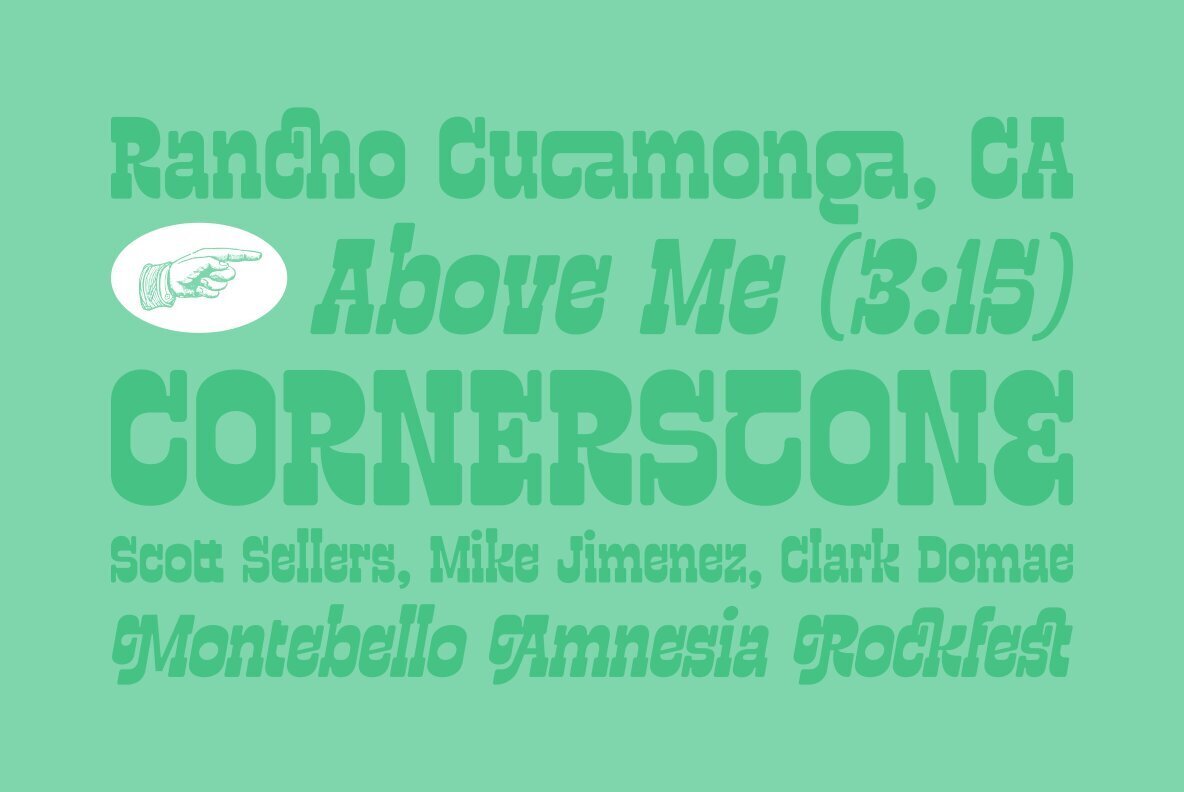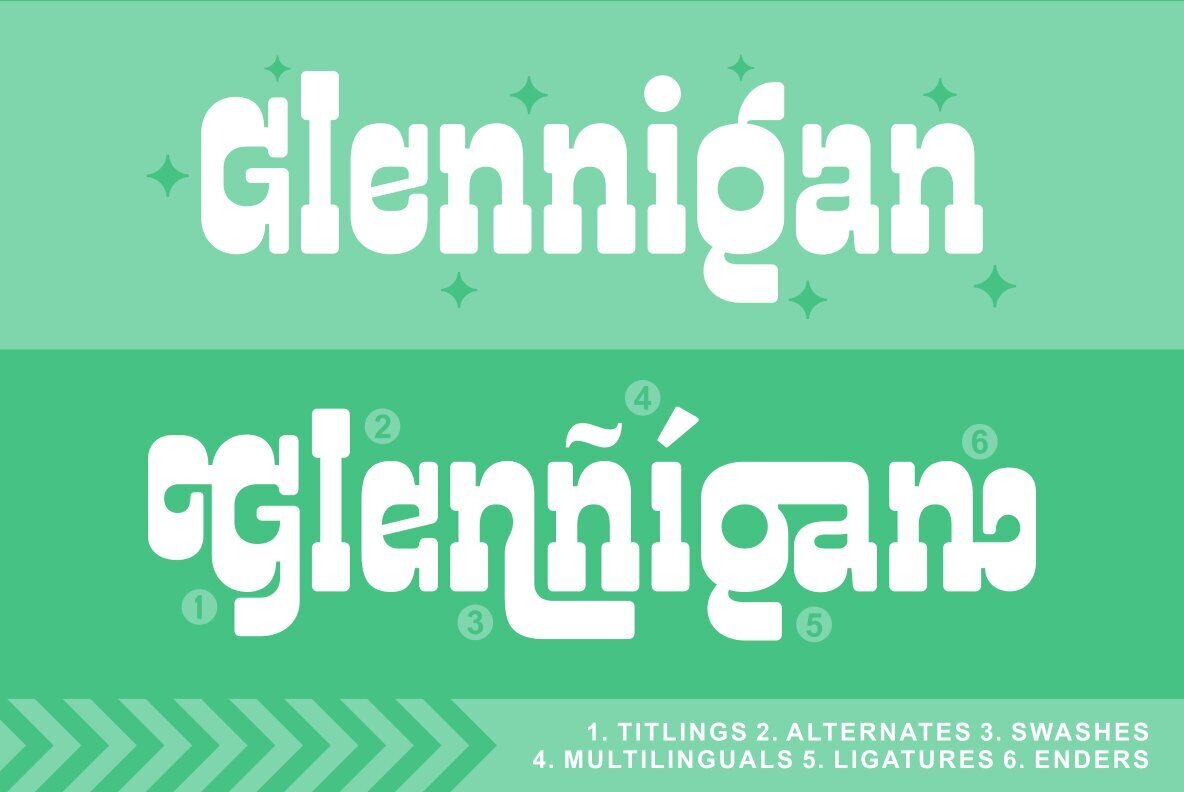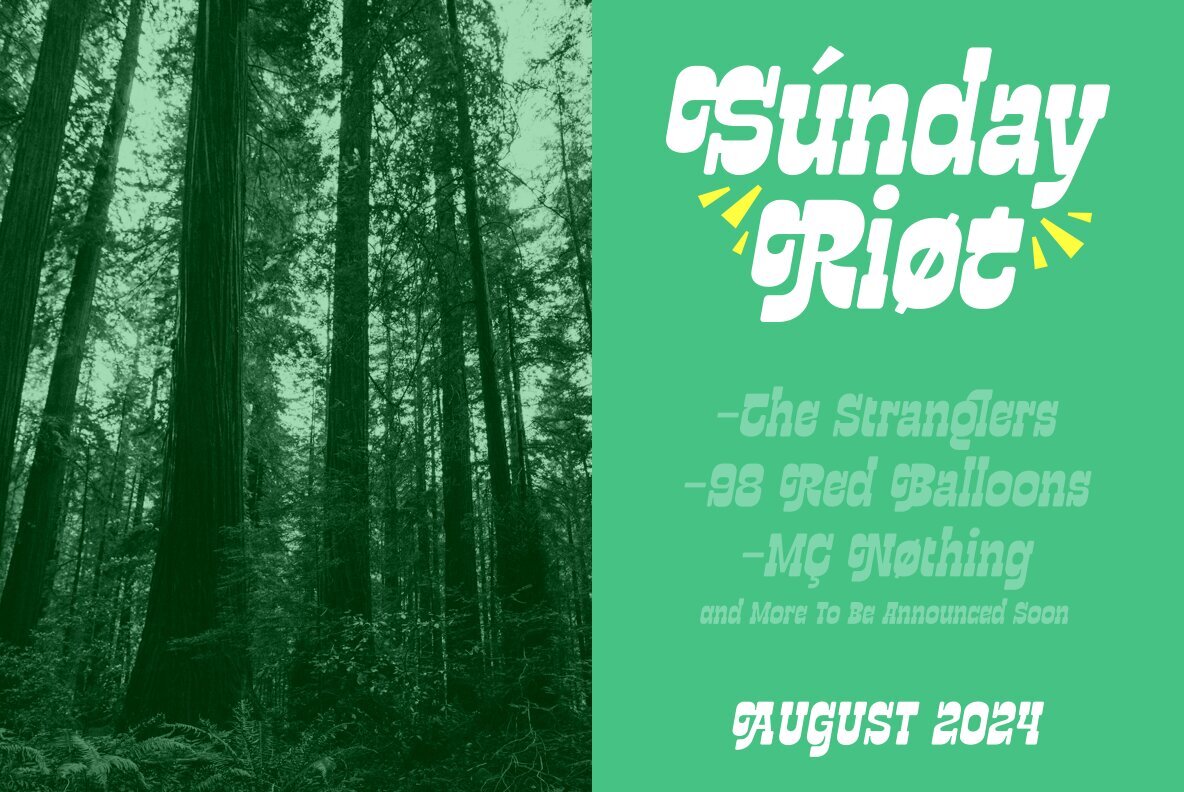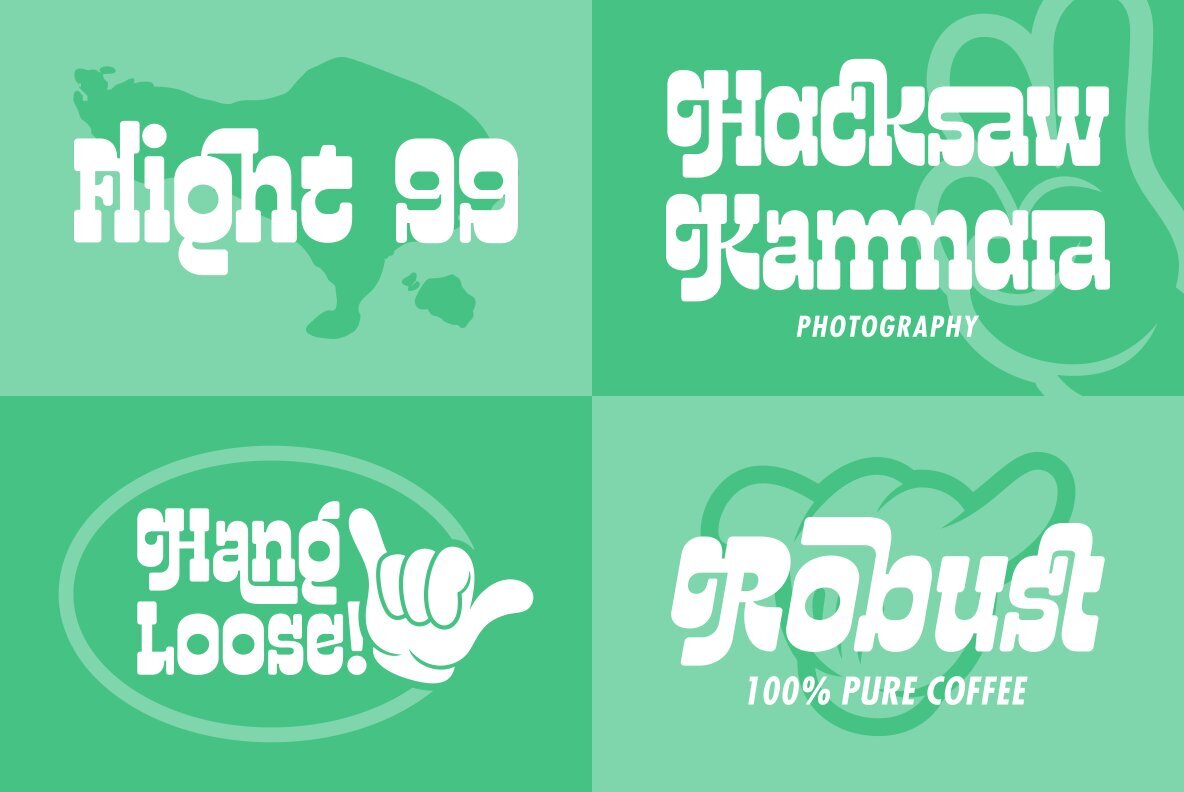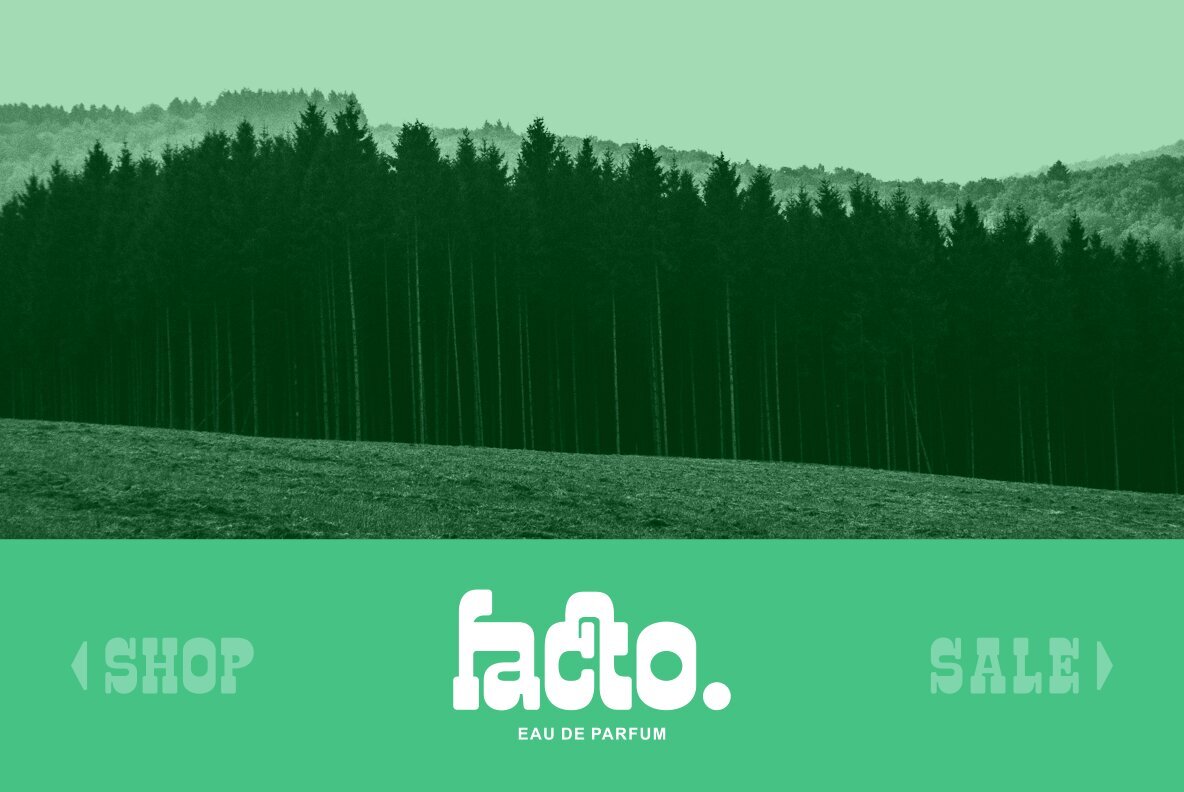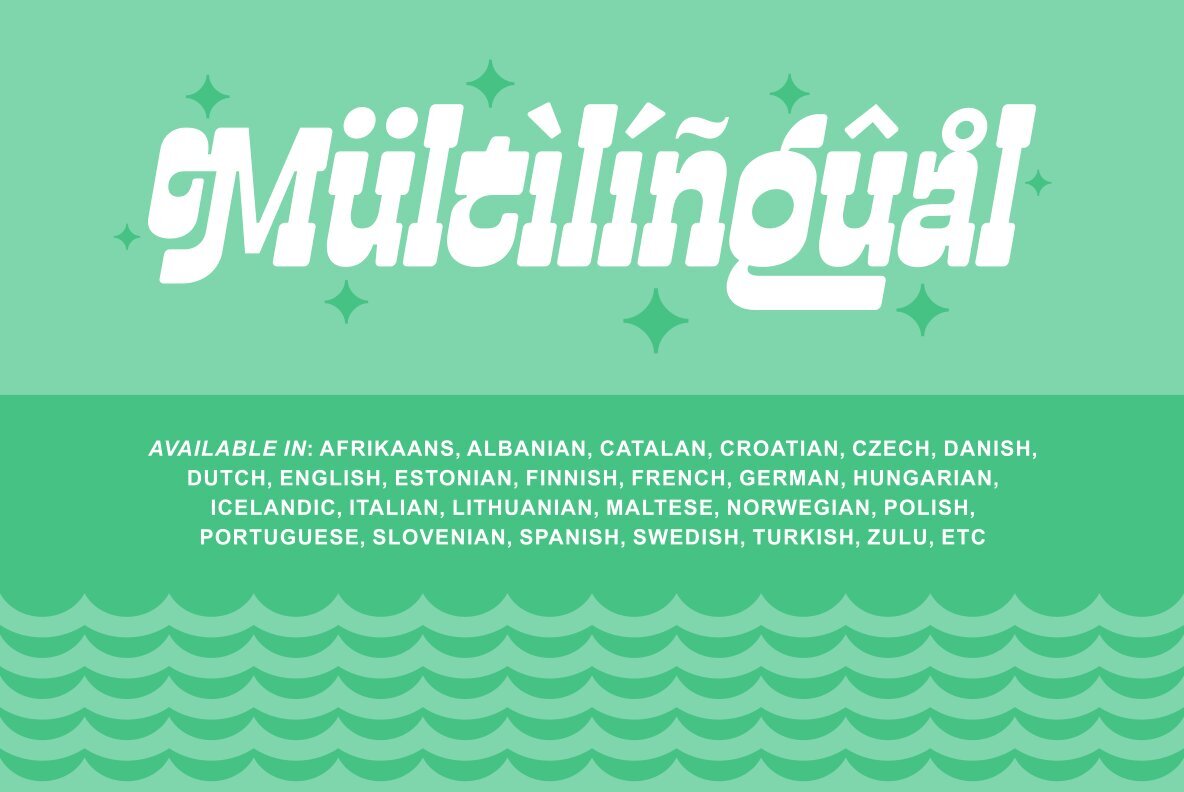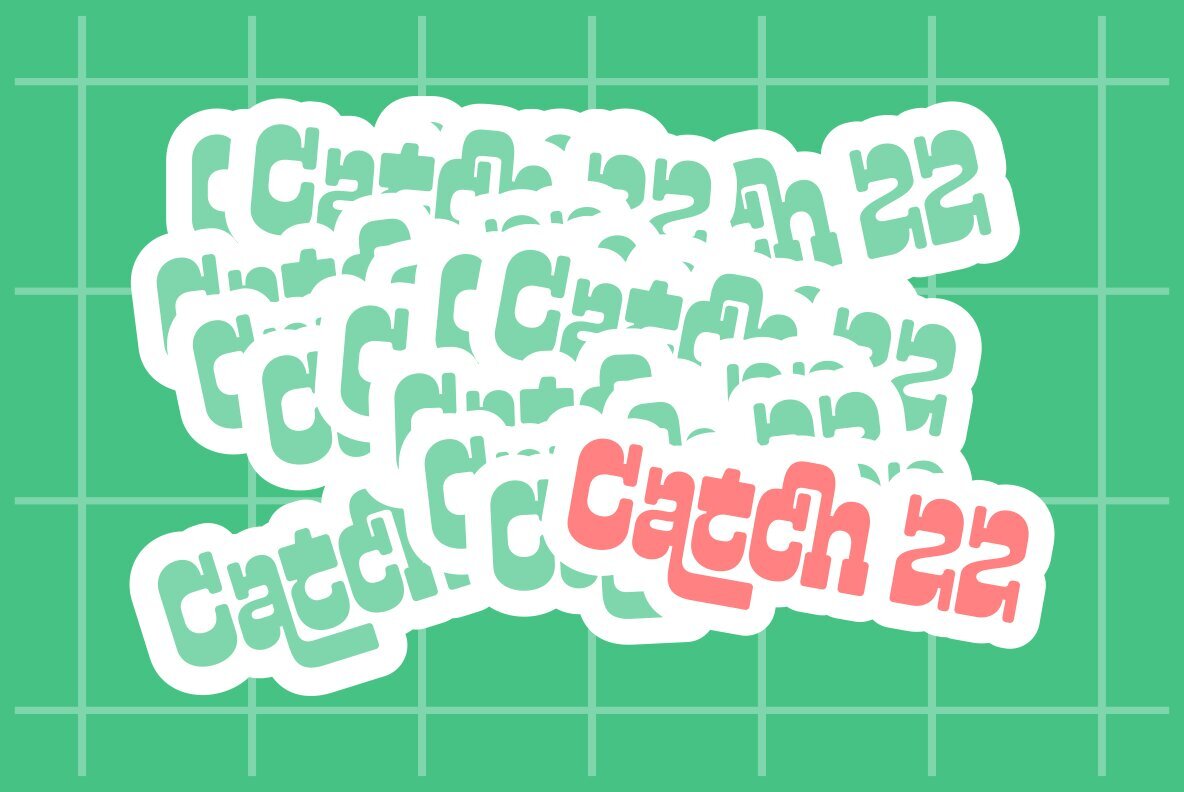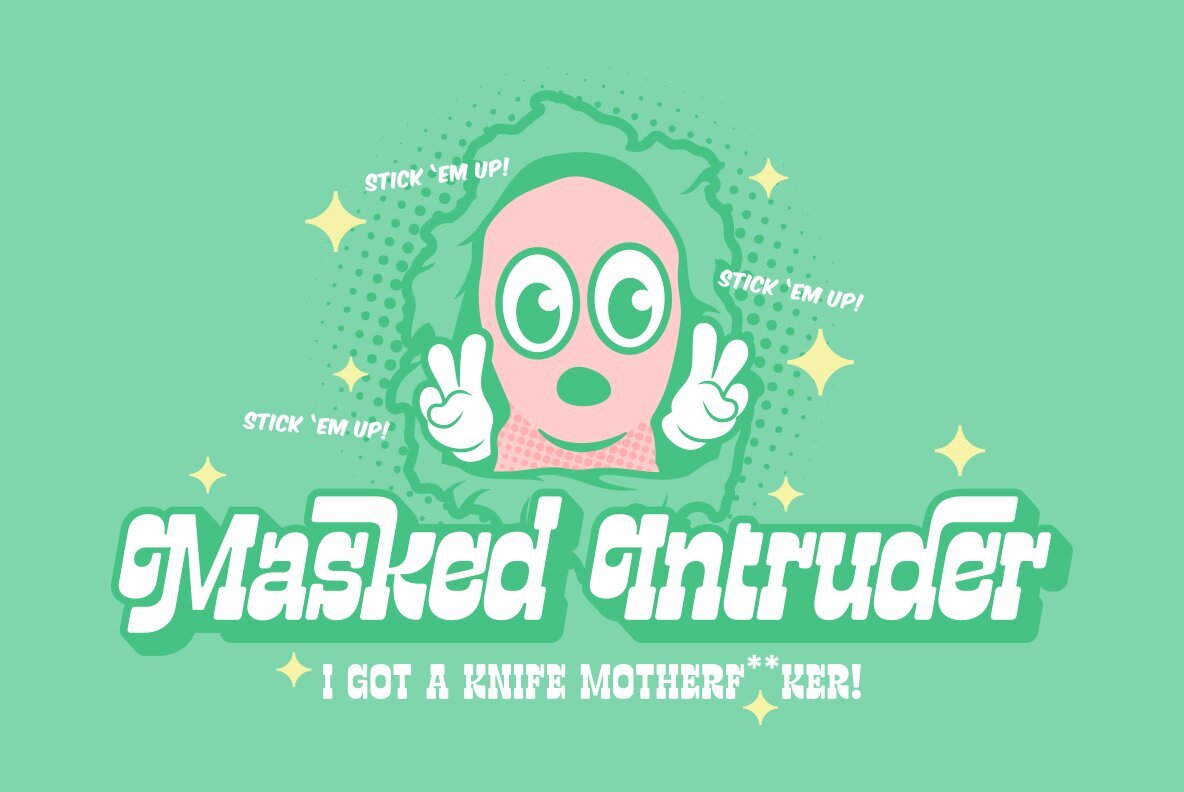
Donega Font
Here comes Donega, our latest font release. A funky and good-looking slab serif with a strong but friendly personality. Crafted with smoothness and high attention to details. Also available in two styles: Regular and Italic, gives you the best designing experience. Suits best for logo/branding, poster designs, headlines, food/beverage packaging, quote writings, etc.